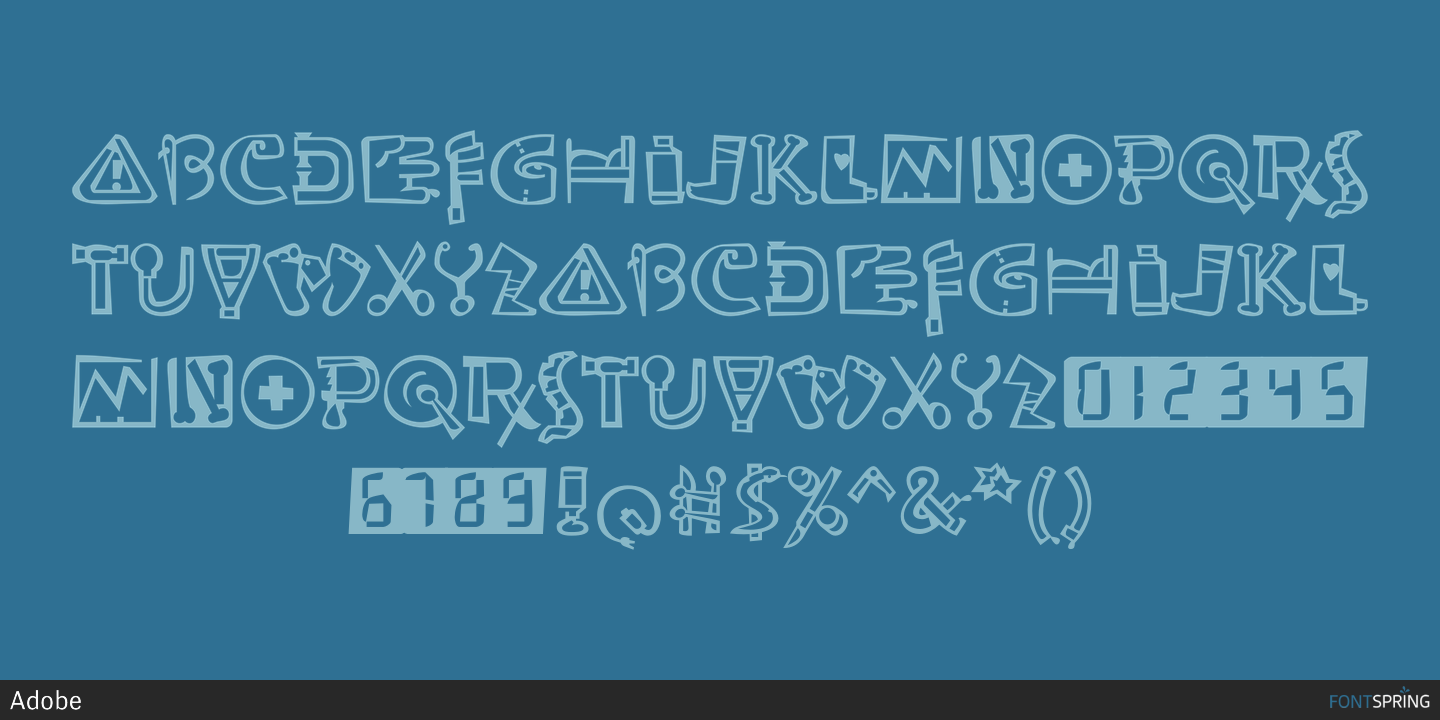
Ouch!® Std is a dingbat and novelty font published by Adobe.
It was a sprained ankle that inspired Joachim Müller-Lancé to design Ouch. During the 1995 ATypI convention, he spent the entire time on crutches, and during his hands-on time in the TypeLab, he says, [I was] inspired to take a fresh and ironic approach to my incapacity. I began to scribble characters made up of a variety of devices - some that I knew first-hand and others I had seen in movies or comics. Ouch is meant to be fun. Use it on Get Well greeting cards, children’s toys and games, or even hospital collateral and signage. After all, sometimes laughter is the best medicine.